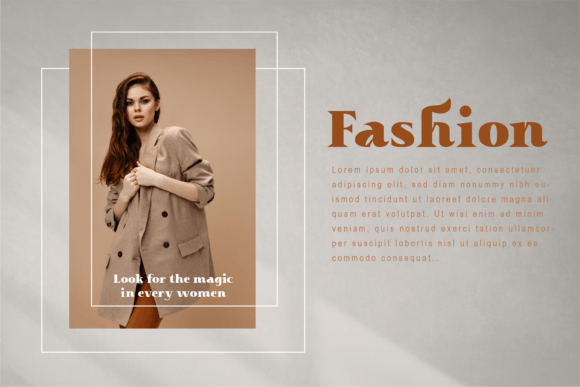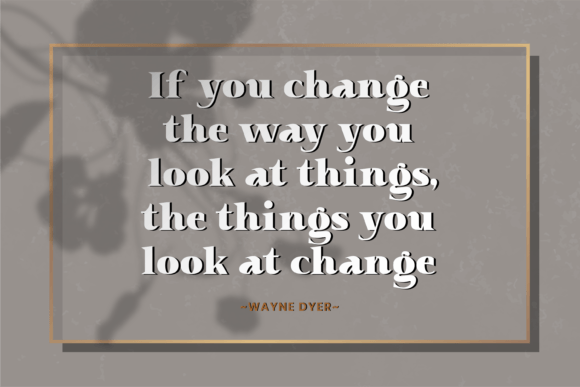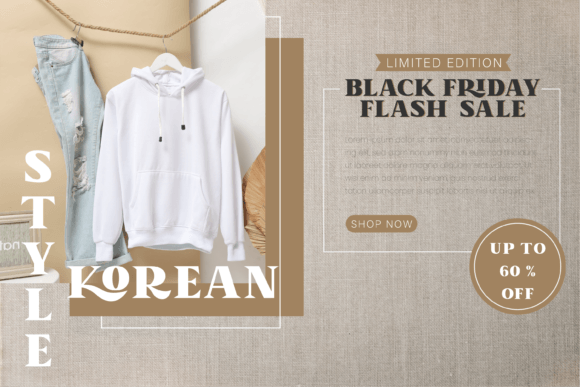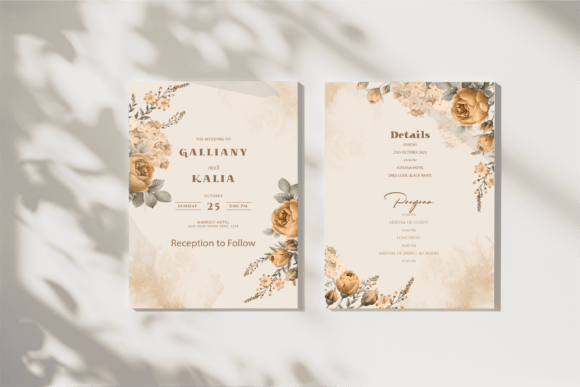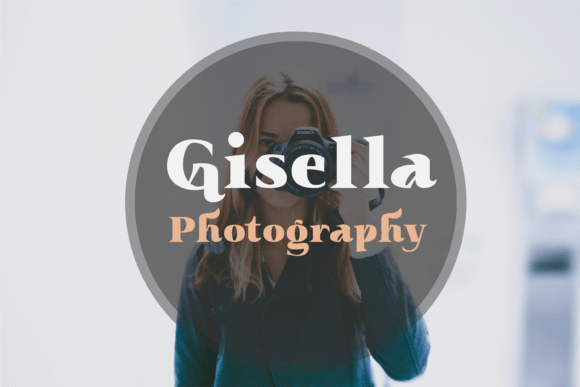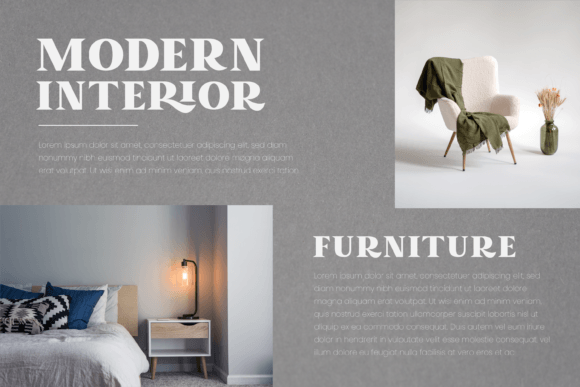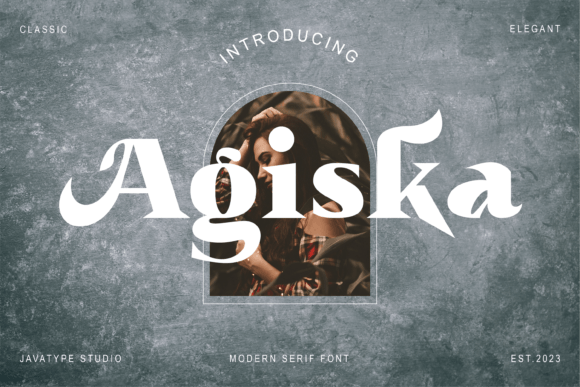
Introducing Agiska: A Modern Serif Font Revolutionizing Typography
In the ever-evolving world of typography, a new font has emerged to capture the essence of modern style combined with bold typography. Meet Agiska, a contemporary serif font designed to elevate your designs with its unique blend of sophistication and versatility. Agiska is not just a font; it’s a creative tool that offers a wide range of possibilities for designers, crafters, and anyone looking to make a statement with their typography.
Design and Features of Agiska
Agiska is inspired by the latest trends in modern typography, where simplicity meets elegance. Its serif design adds a touch of sophistication, making it perfect for projects that demand a high level of professionalism. One of the standout features of Agiska is its OpenType format, which comes with a plethora of alternates and end swashes. These features allow for a high degree of customization, enabling designers to create unique lettering that stands out.
Uses of Agiska
Agiska’s versatility is one of its most compelling attributes. It is designed to be used across various mediums and applications, making it an excellent addition to any designer’s toolkit. Here are some of the ideal uses for Agiska:
- Logotype: Create memorable and impactful logos with Agiska’s unique character set.
- Headings: Use Agiska to create headings that grab attention and add a professional touch to your work.
- Covers and Posters: Agiska’s bold and modern look makes it perfect for covers and posters that need to stand out.
- Logos: Design professional and modern logos that leave a lasting impression.
- Quotes: Highlight quotes with elegance and sophistication using Agiska.
- Product Packaging: Elevate your product packaging with Agiska’s unique typography.
- Headers: Add a touch of modernity to your headers and make your content more engaging.
- Merchandise: Create eye-catching merchandise with Agiska’s distinctive style.
- Social Media: Use Agiska to create engaging social media posts that stand out.
- Greeting Cards: Add a personal touch to your greeting cards with Agiska’s elegant typography.
Why Choose Agiska?
Choosing Agiska for your typography needs comes with several benefits. Its modern design ensures that your work looks contemporary and relevant. The font’s versatility means you can use it across a wide range of projects, from professional documents to creative endeavors. The OpenType features, including alternates and swashes, provide a level of customization that can elevate your designs from ordinary to extraordinary.
Furthermore, Agiska is designed to work seamlessly with popular design software, ensuring that you can easily incorporate it into your workflow. Whether you’re a professional designer or a crafty individual looking to add a personal touch to your projects, Agiska offers the tools you need to create stunning typography.
Agiska is more than just a font; it’s a design solution that offers a blend of modern style, versatility, and customization. Its serif design, combined with bold typography, makes it an excellent choice for a wide range of applications. With its OpenType features and compatibility with popular design software, Agiska provides designers and crafters with the tools they need to create impactful and memorable designs. Whether you’re working on a professional project or a personal craft, Agiska is sure to elevate your typography to new heights.